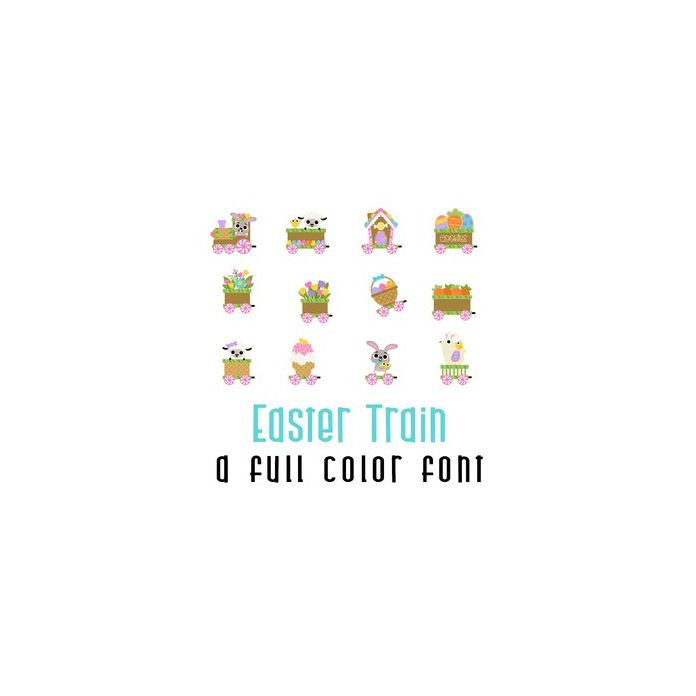
This adorable full-color doodlebat font features 26 Easter Train images. Perfect for cards, crafts, gifts, decor, scrapbook pages, planner stickers, and more!